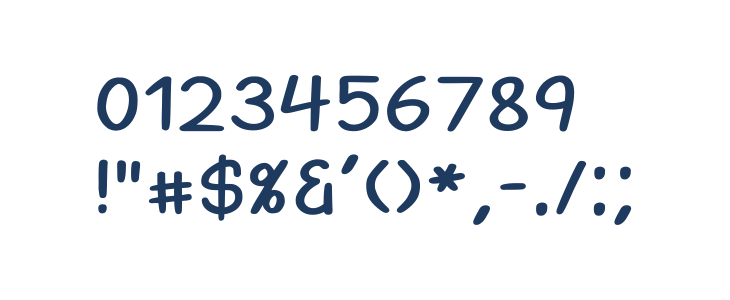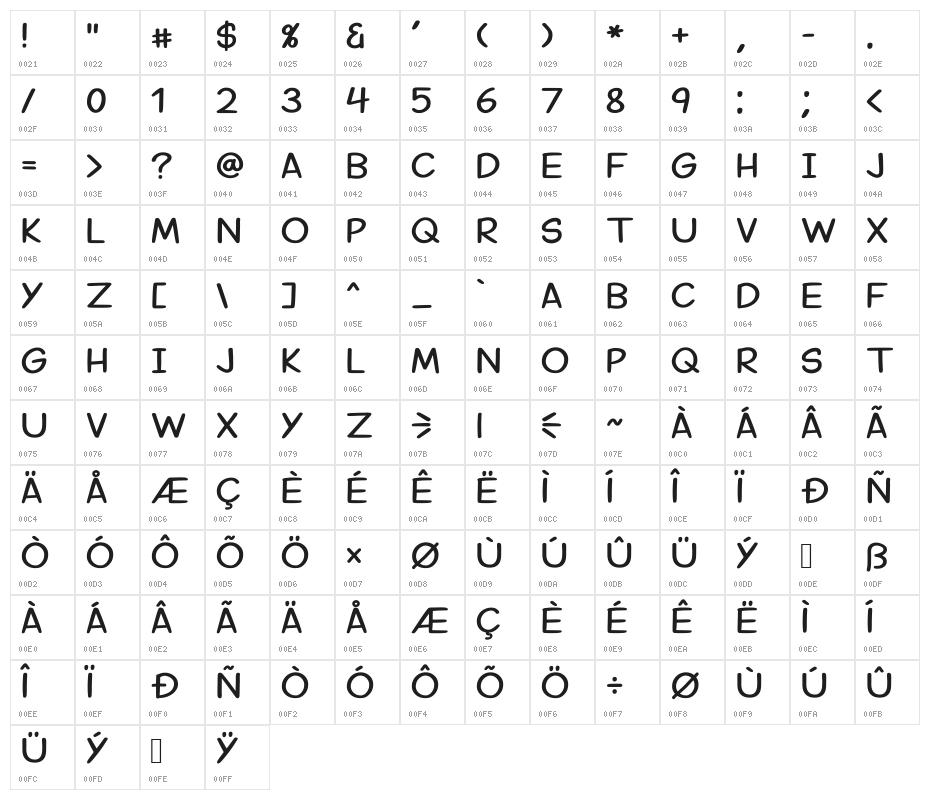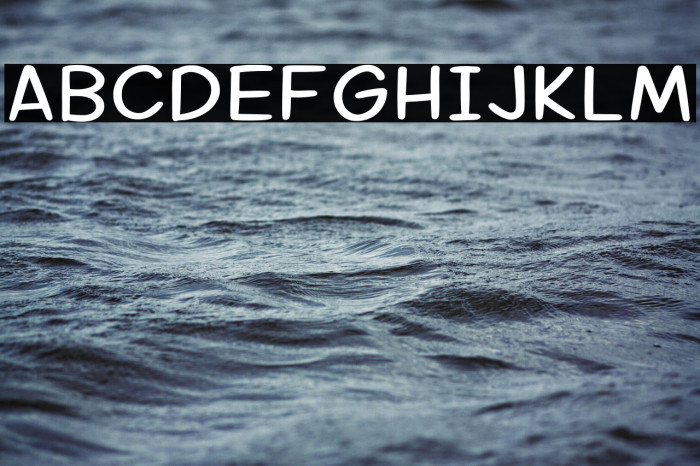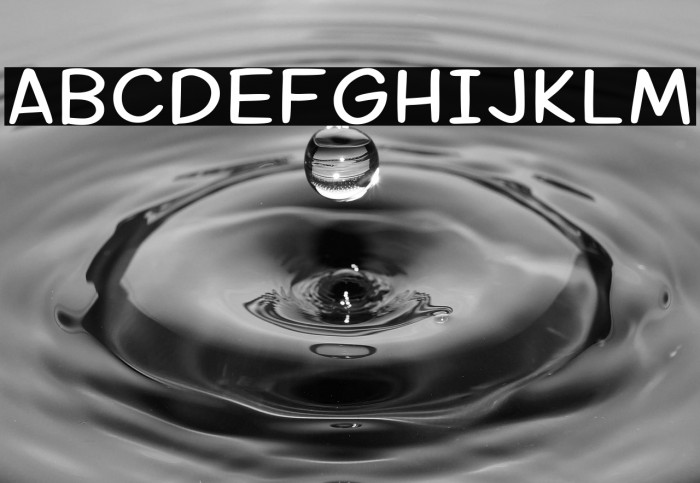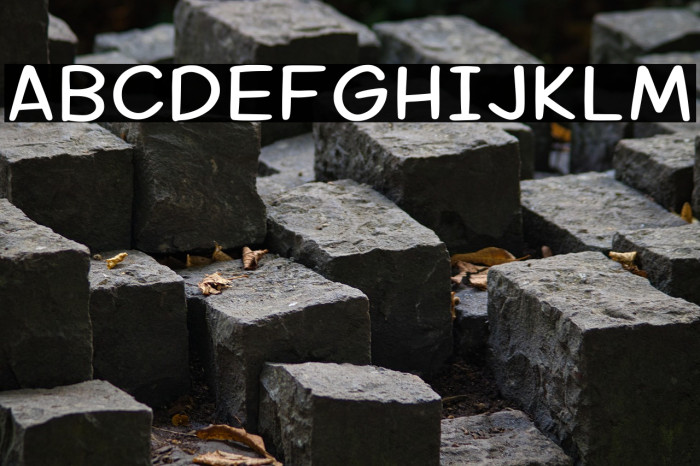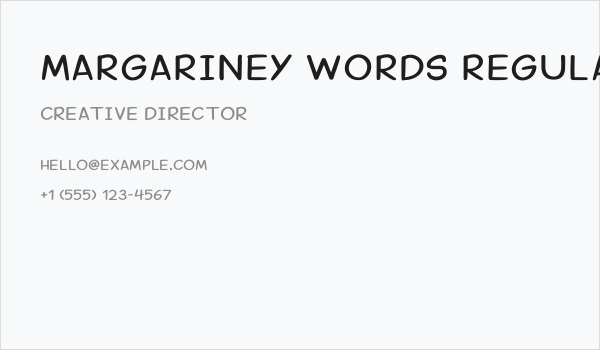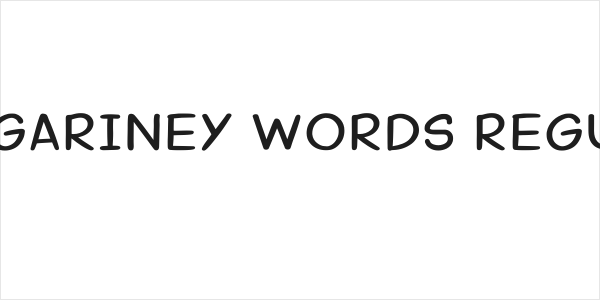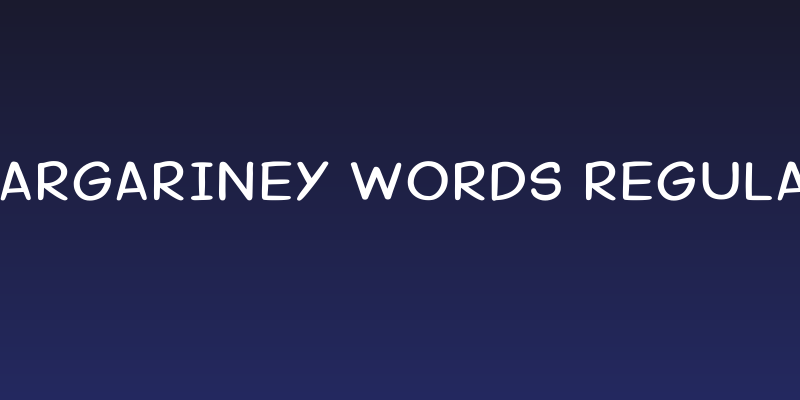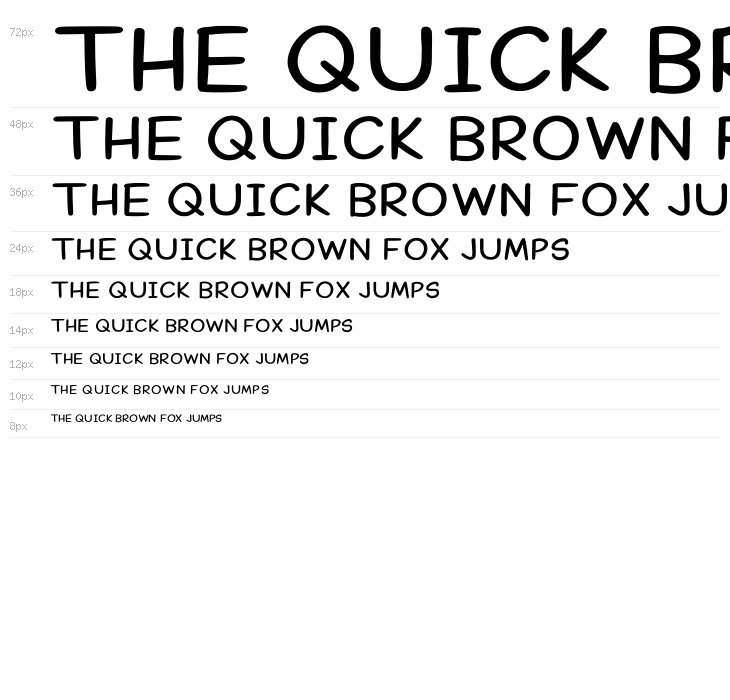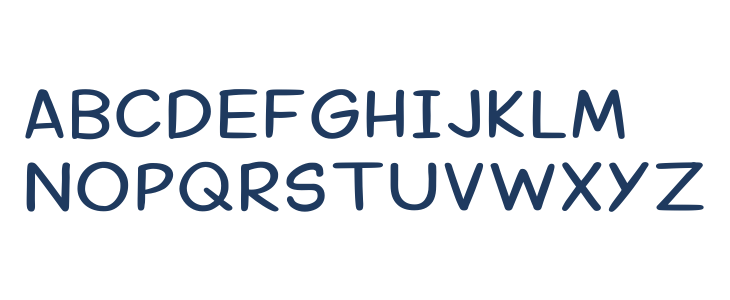
Margariney Words Regular Font
Margariney Words Regular Description
This font features a playful and casual handwritten style, characterized by its rounded edges and slightly irregular letterforms. The strokes are consistent in thickness, giving it a uniform appearance while maintaining a friendly and approachable vibe. The characters are well-spaced, ensuring readability, and the overall look is informal yet clear. This style is reminiscent of handwriting, making it suitable for projects that require a personal touch. The numerals and special characters are designed to match the playful aesthetic, ensuring a cohesive look across all text elements.
| Use Case | Headlines, Informal text, Branding |
| Proposed Projects | Ideal for greeting cards, children's books, casual branding, and social media graphics. |